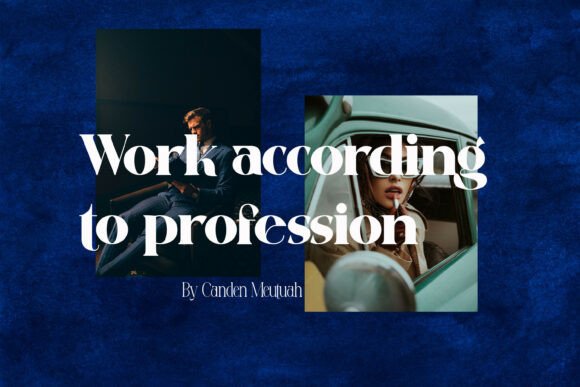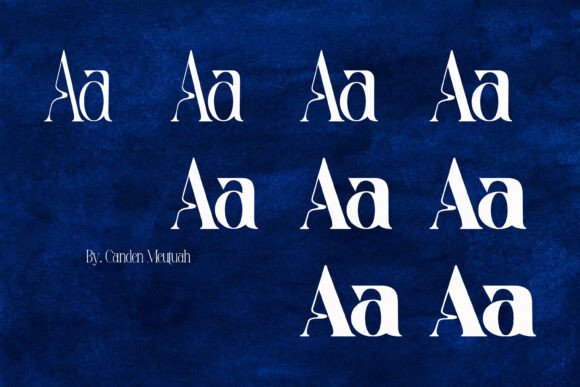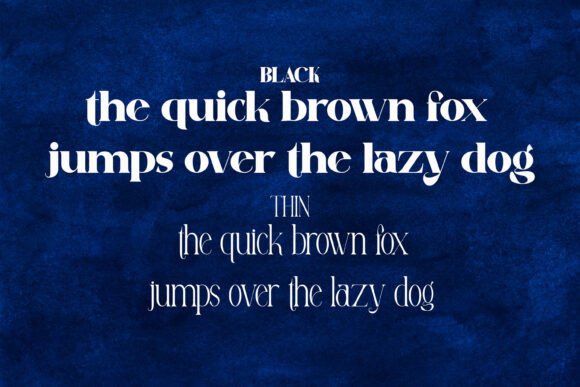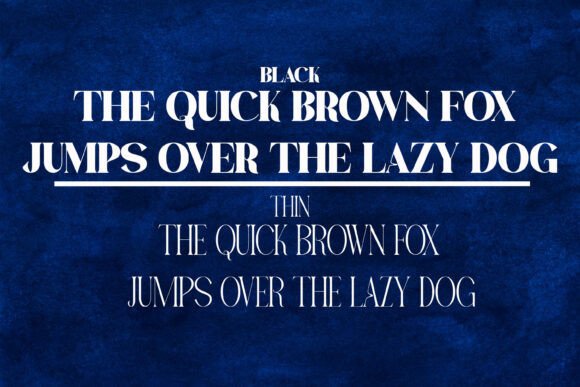
Introducing Avathor Type: A Bold and Stylish Condensed Serif Font
In the world of typography, fonts play a crucial role in conveying messages, expressing emotions, and creating visual identities. For designers and crafters, finding the perfect font can be a daunting task, especially when looking for something that combines style, versatility, and uniqueness. This is where Avathor Type comes in – a bold and stylish family of condensed serif fonts that seamlessly blends retro aesthetics with modern minimalism.
Design Characteristics of Avathor Type
Avathor Type is designed with a keen eye for detail, featuring uppercase and lowercase characters that exude confidence and sophistication. The font boasts bold proportions, clean lines, and bold curves, giving your designs a bold personality that demands attention. The condensed serif style of Avathor Type makes it perfect for a wide range of applications, from posters and logo designs to editorial titles, album covers, and fashion branding.
Key Features of Avathor Type
- Bold and Stylish: Avathor Type is designed to make a statement, with bold proportions and clean lines that give your designs a confident and modern look.
- Condensed Serif Style: The font’s condensed serif style makes it perfect for use in a variety of applications, from posters and logos to editorial titles and album covers.
- Retro Aesthetics meets Modern Minimalism: Avathor Type seamlessly blends retro aesthetics with modern minimalism, creating a unique and distinctive visual identity.
- Uppercase and Lowercase Characters: The font features both uppercase and lowercase characters, giving you flexibility and versatility in your designs.
Avathor Type is a versatile font that can be used in a variety of applications, including:
- Posters: Create eye-catching posters that demand attention with Avathor Type’s bold and stylish design.
- Logo Designs: Use Avathor Type to create logos that exude confidence and sophistication, perfect for businesses and brands looking to make a statement.
- Editorial Titles: Add a touch of elegance and sophistication to your editorial titles with Avathor Type’s clean lines and bold curves.
- Album Covers: Create visually stunning album covers that capture the essence of the music with Avathor Type’s distinctive touch.
- Fashion Branding: Use Avathor Type to create fashion branding that is both stylish and sophisticated, perfect for clothing labels, boutiques, and fashion magazines.
- Display Titles: Add a touch of drama and flair to your display titles with Avathor Type’s bold and stylish design.
Why Choose Avathor Type?
With so many fonts available, why choose Avathor Type? Here are just a few reasons why designers and crafters are falling in love with this bold and stylish font:
- Unique Visual Identity: Avathor Type offers a unique and distinctive visual identity that sets it apart from other fonts.
- Versatility: The font’s versatility makes it perfect for use in a wide range of applications, from posters and logos to editorial titles and album covers.
- Easy to Read: Despite its bold and stylish design, Avathor Type is easy to read, making it perfect for use in body text and captions.
- High-Quality Design: Avathor Type is designed with a keen eye for detail, ensuring a high-quality design that looks great in any application.
In conclusion, Avathor Type is a bold and stylish family of condensed serif fonts that is perfect for designers and crafters looking to add a touch of sophistication and elegance to their designs. With its unique visual identity, versatility, and high-quality design, Avathor Type is sure to become a go-to font for anyone looking to make a statement.